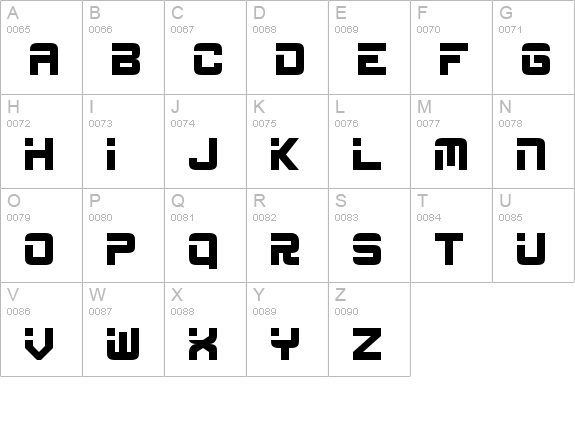
The ESP font is a stunning and versatile typeface that combines elegance with a modern twist. Its sleek lines and unique character designs make it perfect for a wide range of projects, from branding to editorial design. With its bold presence and clean aesthetics, the ESP font is sure to make a statement and captivate your audience. What's even better is that the ESP font is completely free for personal and commercial use. You can easily download this exceptional font at FontsMarket.com and start incorporating it into your projects right away. Don't miss out on the opportunity to add this stylish and eye-catching font to your collection today!